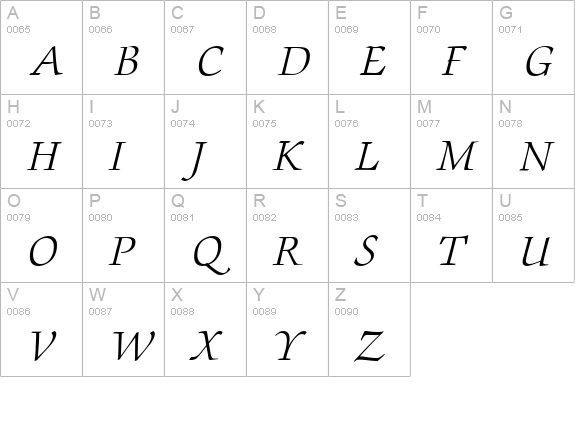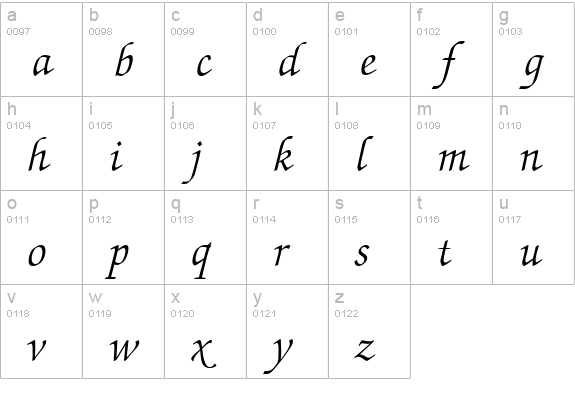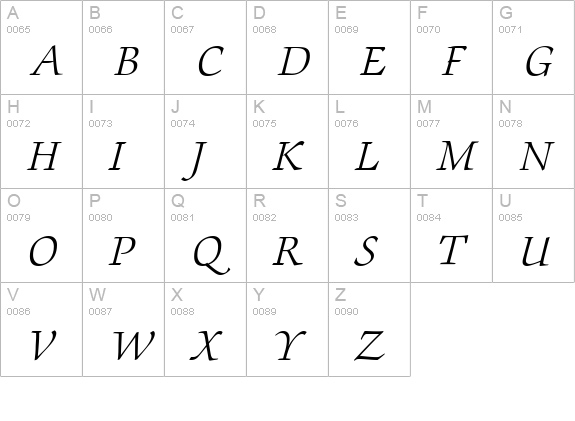
ZabriskieScriptSwash-Italic Font Details
ZabriskieScriptSwash-Italic is a distinctive, italic variant in the ZabriskieScriptSwash typeface family \xE2\x80\x94 well suited to design and typography projects.
ZabriskieScriptSwash-Italic is a beautifully designed font that exudes elegance and sophistication. With its graceful and flowing swashes, this italic typeface adds a touch of charm and uniqueness to any project. Perfect for creating invitations, greeting cards, logos, and more, ZabriskieScriptSwash-Italic is sure to make a lasting impression. Best of all, this stunning font is available for free download at FontsMarket.com. Whether you're a professional designer or a hobbyist looking to add a special touch to your creations, ZabriskieScriptSwash-Italic is the perfect choice. Download it today and let your creativity soar with this exquisite and versatile typeface.